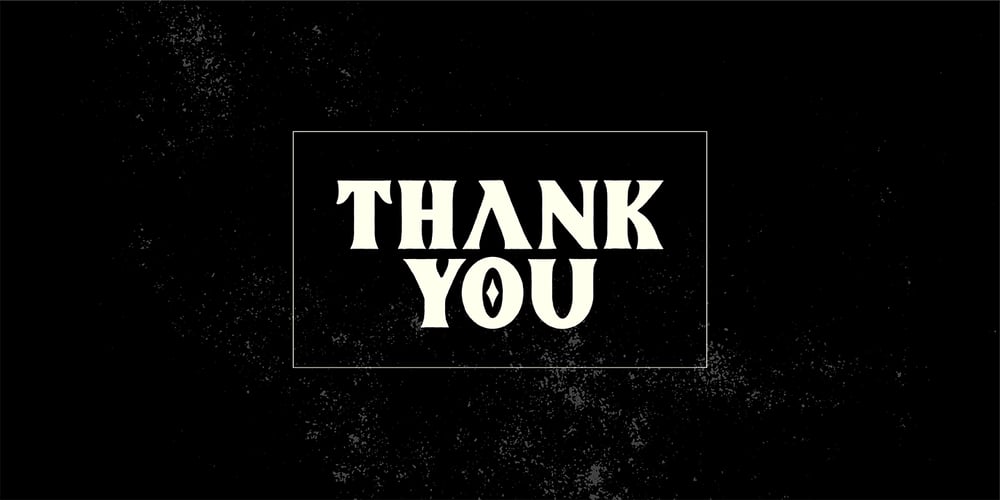
Brotherland Font Family was designed by Andika Setiawan and published by Dikas Studio. Brotherland contains 4 styles and family package options. Brotherland is a handdrawn serif typeface wit a rough and vintage character inspired from American Vintage typography. Brotherland comes with 4 styles: Regular, Italic, Aged, Italic Aged. Perfect for logos, badges and any project needing a vintage touch.